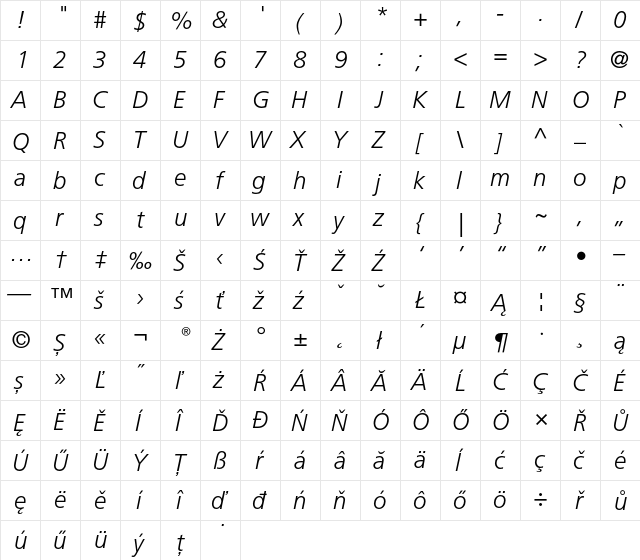
Frutiger 46 CE Light Italic
Design Context for Frutiger Typeface
Frutiger is a composed and adaptable typeface that performs quietly and consistently across a wide range of design contexts. Its italic angle brings a sense of urgency and motion to the letterforms. Its slender proportions lend an understated elegance to any composition.
Pro Tip: Try Frutiger for annotation and caption copy alongside an upright companion — the contrast in angle creates a dynamic but ordered typographic system.